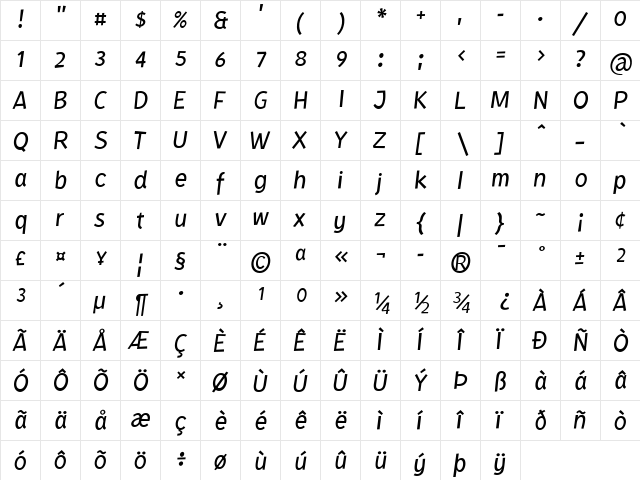
Kurri Island Italic Thin Regular Font Preview
Design Context for Kurri Island Italic Thin Typeface
Kurri Island Italic Thin is a composed and adaptable typeface that performs quietly and consistently across a wide range of design contexts. The dynamic lean of this cut emphasises speed and emphasis in any layout. The delicate stroke weight brings airiness and refinement to layouts.
Pro Tip: Try Kurri Island Italic Thin for annotation and caption copy alongside an upright companion — the contrast in angle creates a dynamic but ordered typographic system.